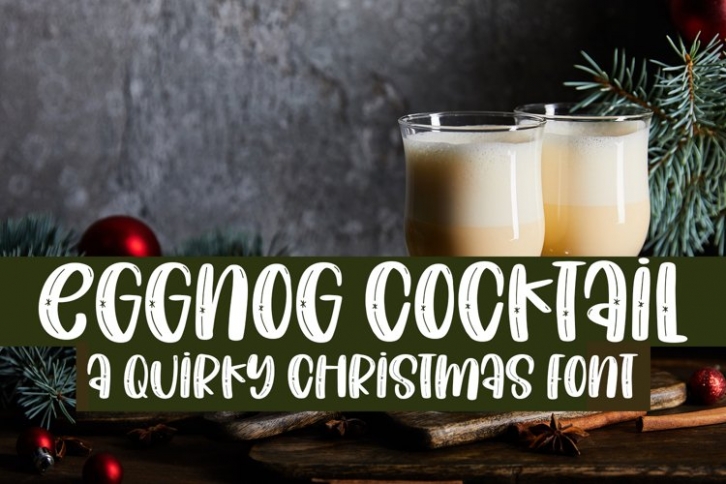
Eggnog Cocktail is a beautiful font that was designed by plusstore. It's a great choice for designers and creatives who need such a font. It was released on September 17, 2021 and the file size is 15.7 MB. Eggnog Cocktail may give a more youthful, expressive and casual look to your project. It is a very beautiful, refined, elegant, and high-quality font.